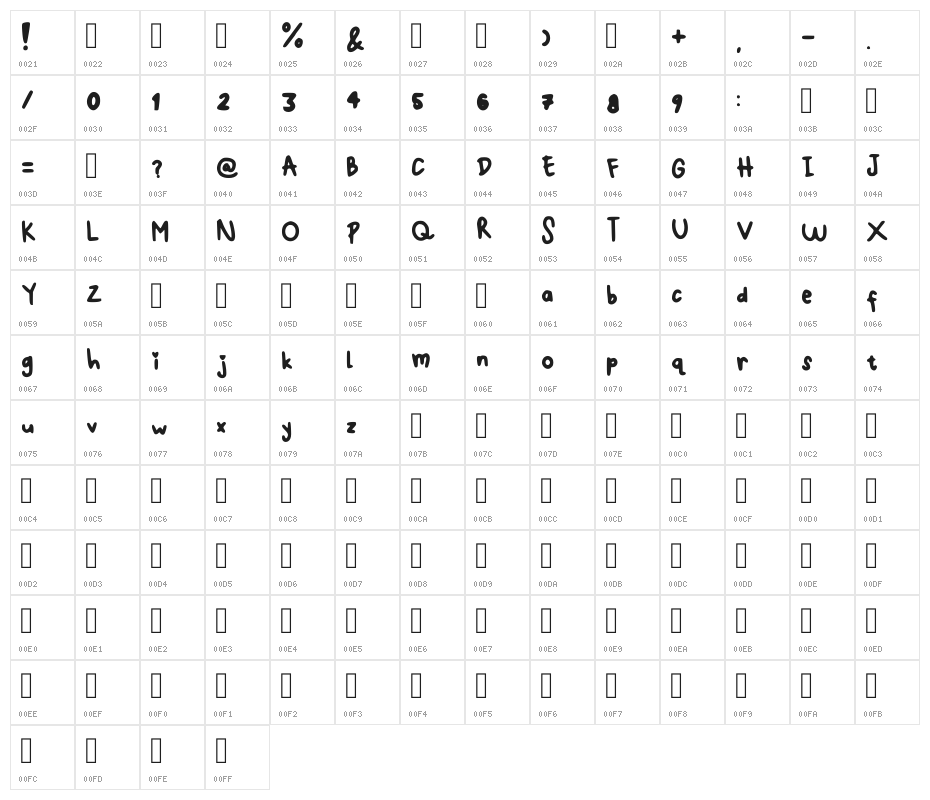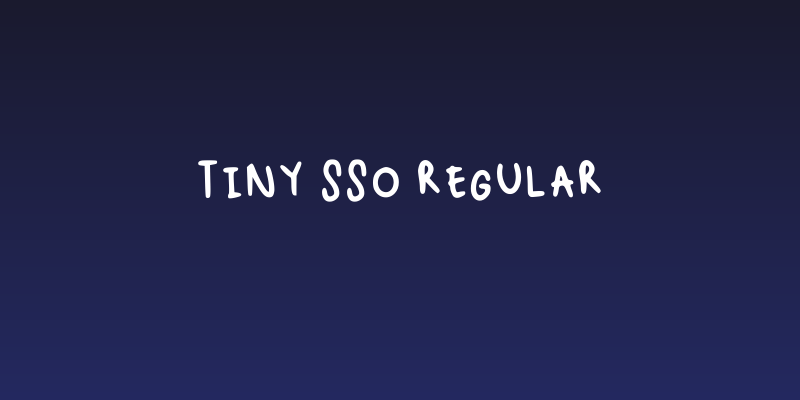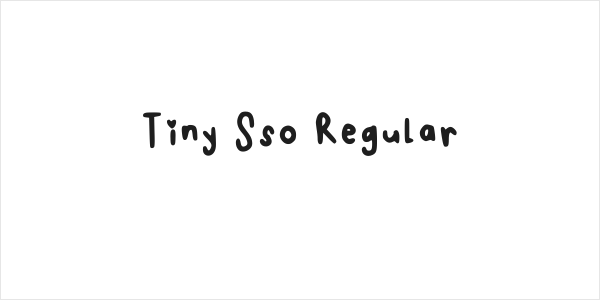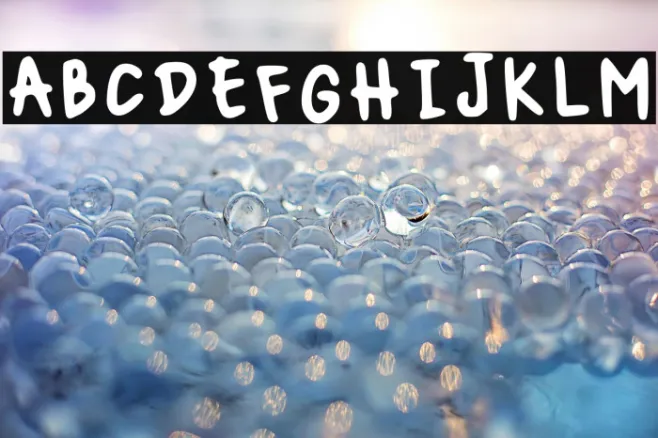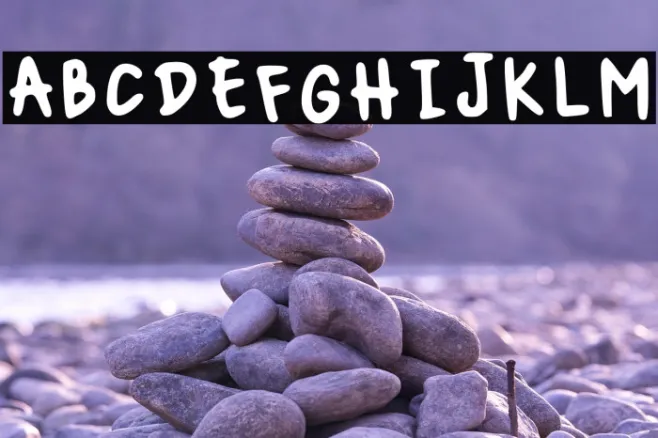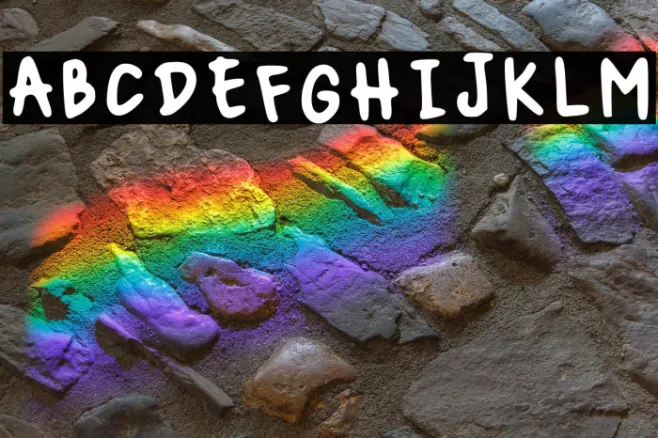
Tiny Sso Regular Font
Tiny Sso Regular Description
This playful and whimsical font features a hand-drawn style with irregular, rounded edges and a casual, friendly appearance. The characters are slightly uneven, giving it a charming, informal look. The uppercase and lowercase letters maintain a consistent style, with a slight tilt and varying stroke thickness that adds to its quirky personality. The numbers and special characters follow the same playful design, making it suitable for creative and fun projects. The font's unique style is perfect for conveying a sense of joy and spontaneity.
| Proposed Projects | Ideal for children's books, playful branding, greeting cards, and creative posters. |